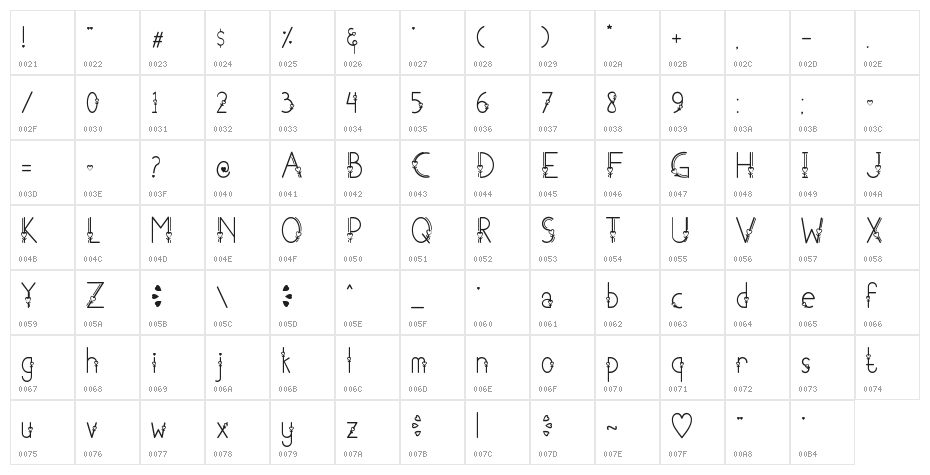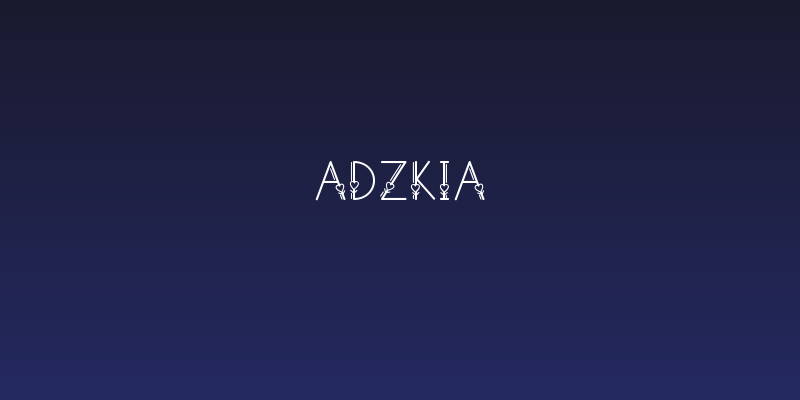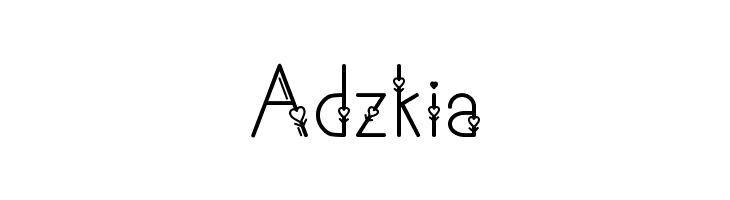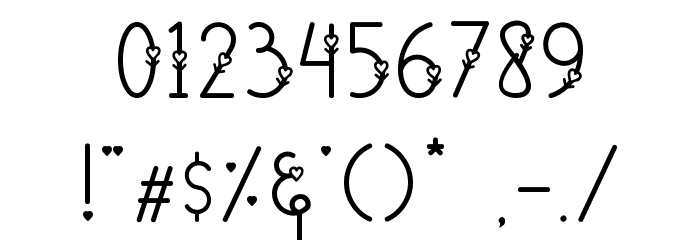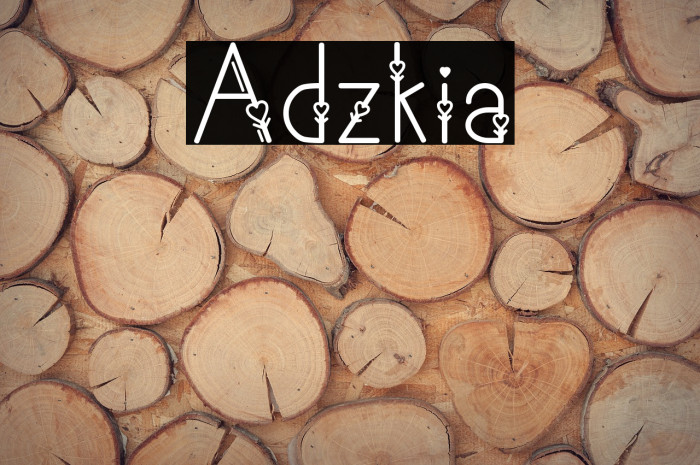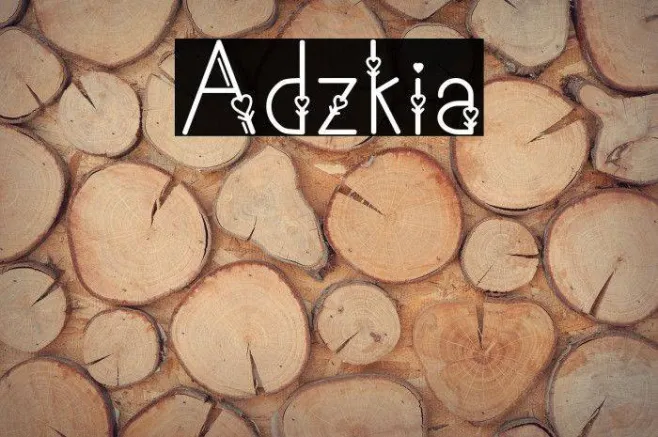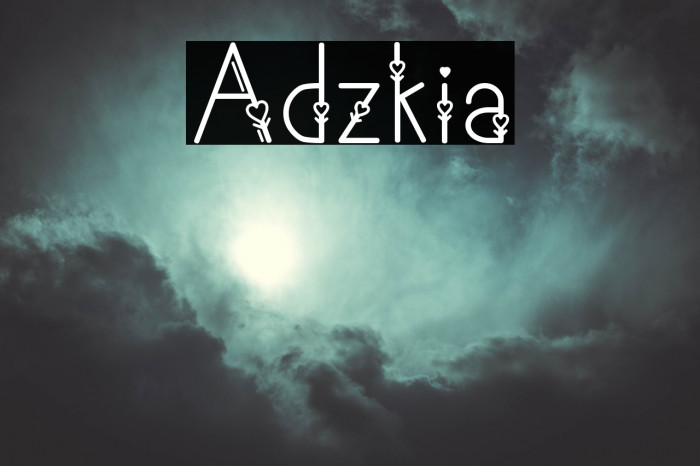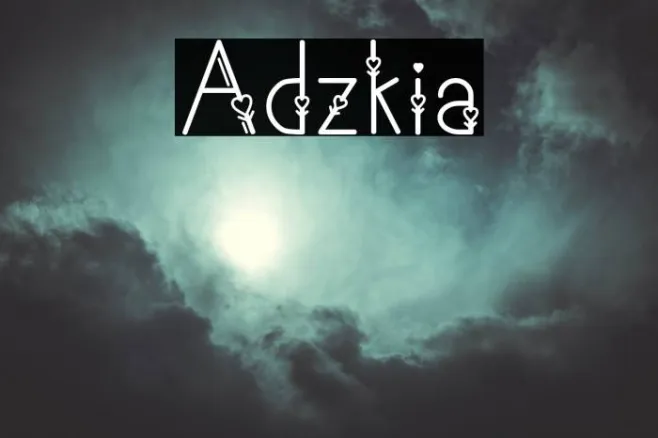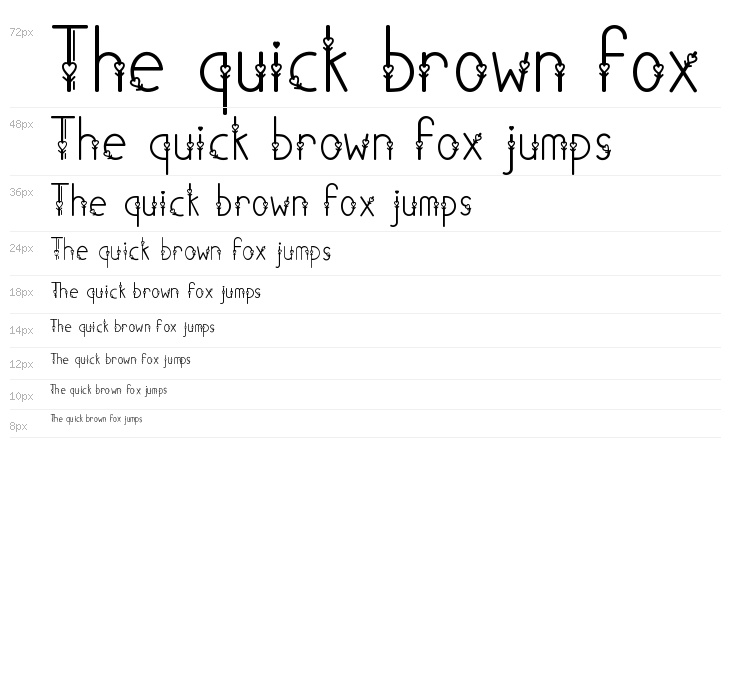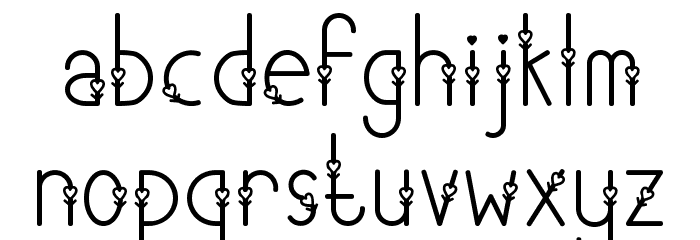
Adzkia Font
Adzkia Description
This decorative font features a unique design where each character is adorned with a small heart shape integrated into the strokes. The letters are primarily uppercase and lowercase alphabets, along with numbers and a selection of special characters. The overall style is playful and whimsical, making it ideal for projects that require a touch of charm and creativity. The font maintains a consistent line weight throughout, with medium contrast between the strokes. The spacing between characters is normal, ensuring readability while maintaining its decorative appeal.
| Proposed Projects | Ideal for greeting cards, wedding invitations, playful branding, and children's book covers. |